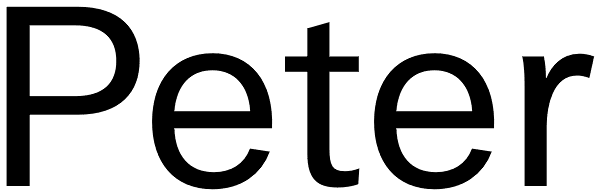
Peter
While working on his master thesis designer Philip Lammert was thinking of a logotype for his type foundry Calligrafiction. He thought that the most obvious and boring graphic illustrating the name would be a brush lettering. So he started sketching...